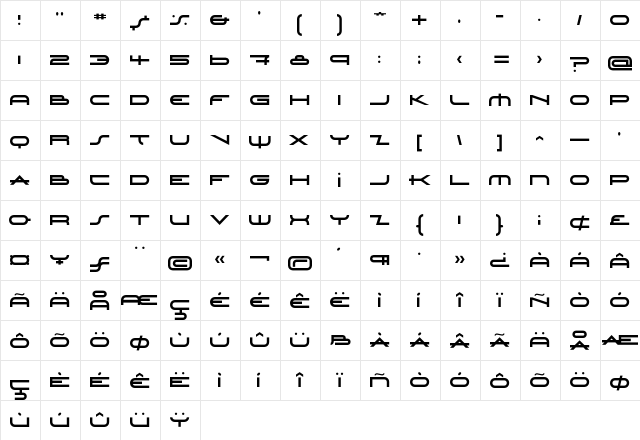
LordHaw Haw
Design Context for LordHaw Typeface
LordHaw offers clean, dependable letterforms without strong stylistic allegiance, making it a practical choice for designers who need flexibility.